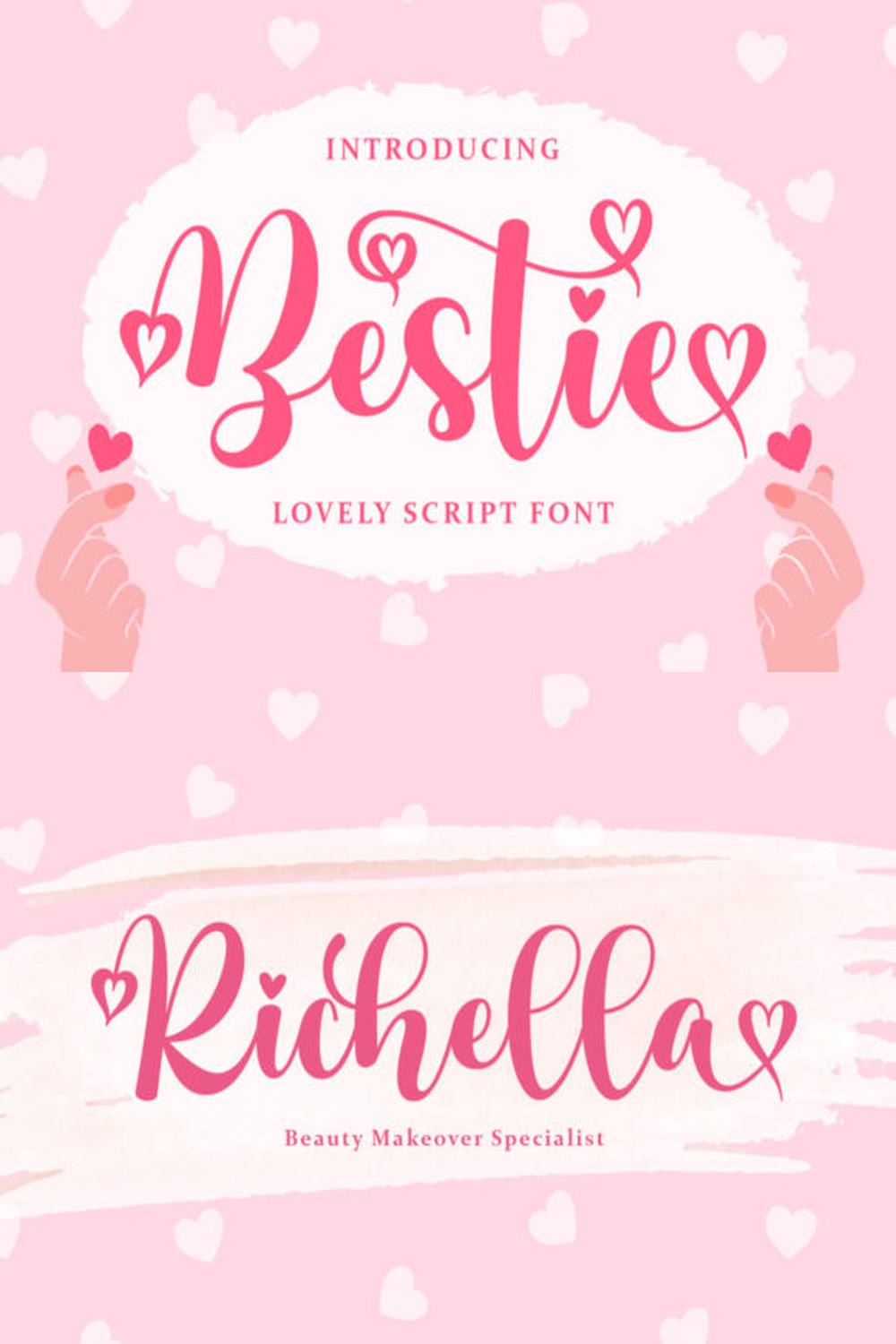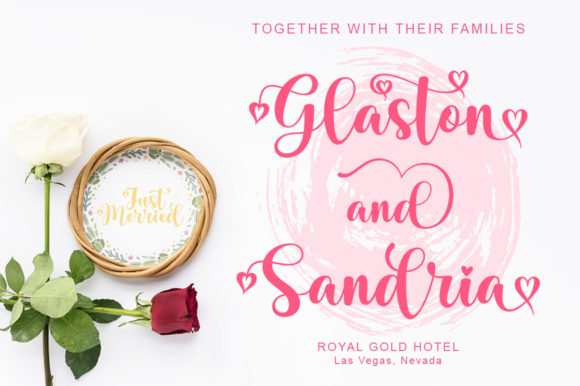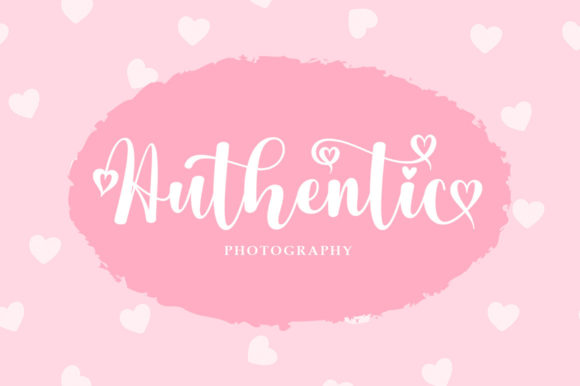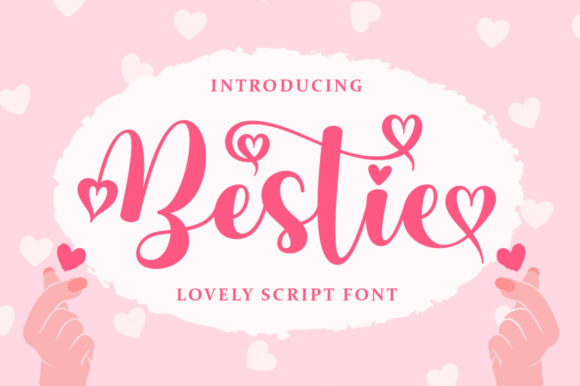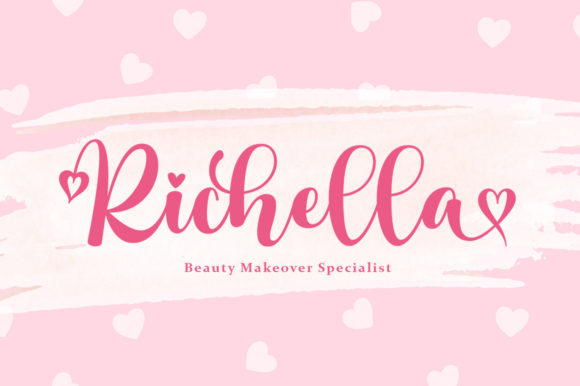
About the Bestie Font
Let us introduce you to Bestie Font, where timeless design meets modern craftsmanship. Bestie is inspired by modern calligraphy with heart tails. This font includes a cute heart with each character—awesome for personalized holiday decorations.
Taking romantic to a whole new level with hearts for dots—you can find them on characters like “i” and “j”.